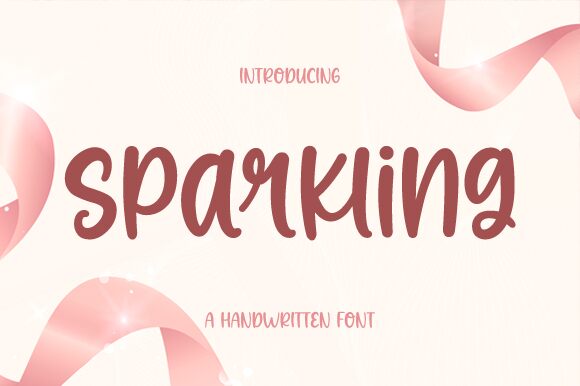
Sparkling
Sparkling, designed by Graphix Line Studio, is a semi-bold and semi-condensed handwritten font that captures the essence of personal touch in digital typography. With its fluid and dynamic character strokes, Sparkling exudes a sense of authenticity and charm that is hard to find in standard typefaces.
This font's aesthetic appeal lies in its perfect balance between readability and stylistic flair. Each letterform is crafted with a natural variation that mimics the nuances of hand-drawn artistry, making it an excellent choice for projects requiring an intimate and engaging feel.
Ideal for branding, invitations, greeting cards, and any creative endeavor where personality is key, Sparkling brings an approachable yet distinctive allure to your designs. Its versatility allows it to blend seamlessly into various contexts while adding a sprinkle of individuality that elevates your project's visual narrative.